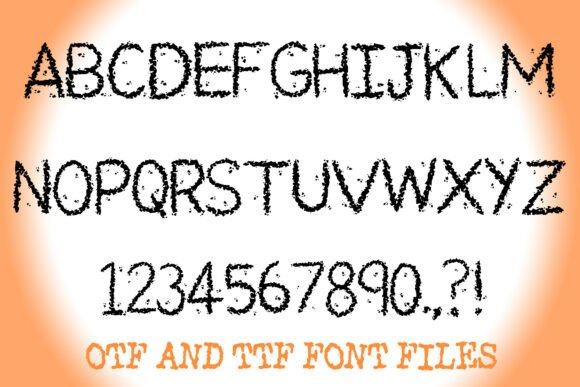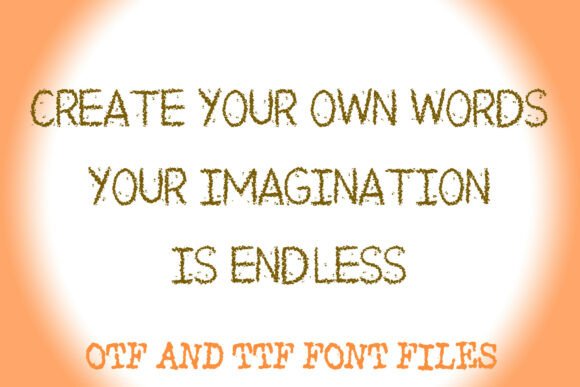
Introduction to Dusty Soil Font
Dusty Soil is a rugged, weathered serif font with a distressed texture that mimics cracked earth or dried mud.
| 👤 Author | squeebcreative |
Ideal for nature-inspired branding, organic packaging, farm markets, or grunge-style posters that need a grounded, earthy feel .